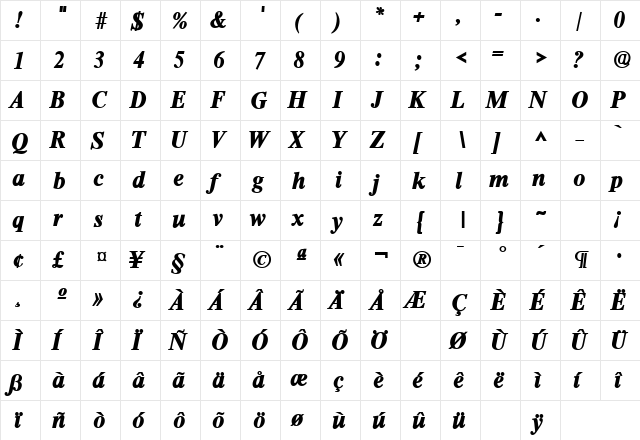
RomanLH Bold Italic
Design Context for RomanLH Typeface
RomanLH is a composed and adaptable typeface that performs quietly and consistently across a wide range of design contexts. The slanted form adds forward momentum and visual energy. The heavy weight commands attention and anchors typographic hierarchies.
Pro Tip: Try RomanLH for annotation and caption copy alongside an upright companion — the contrast in angle creates a dynamic but ordered typographic system.